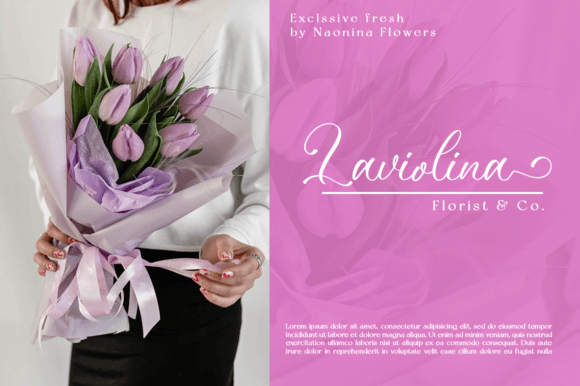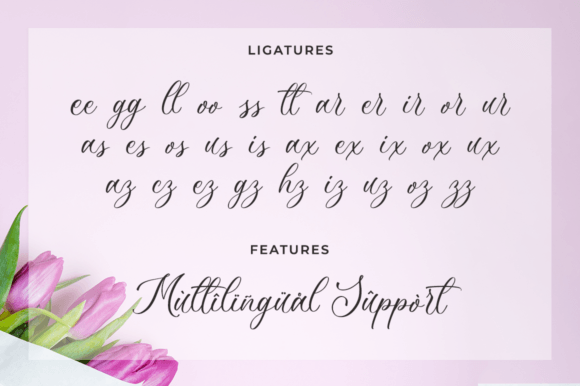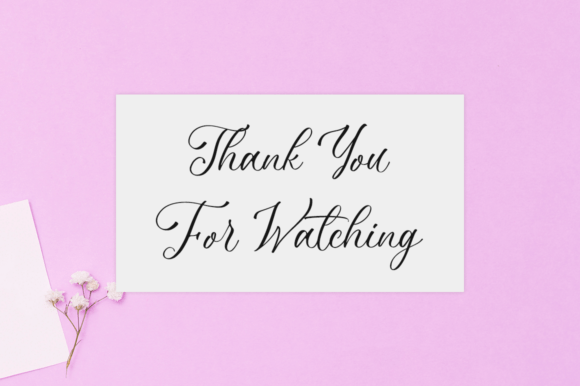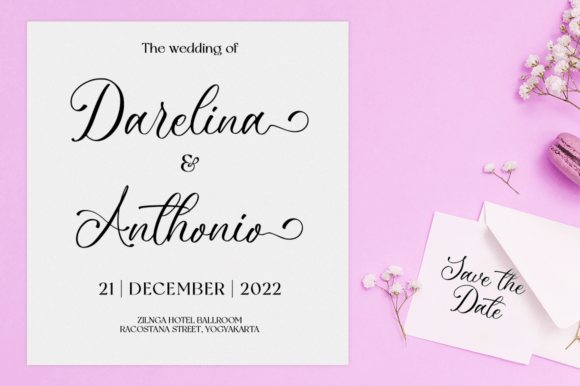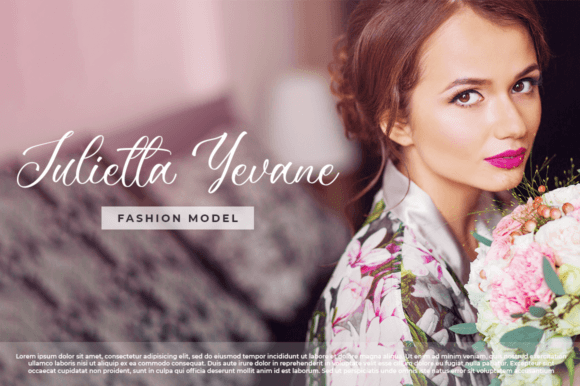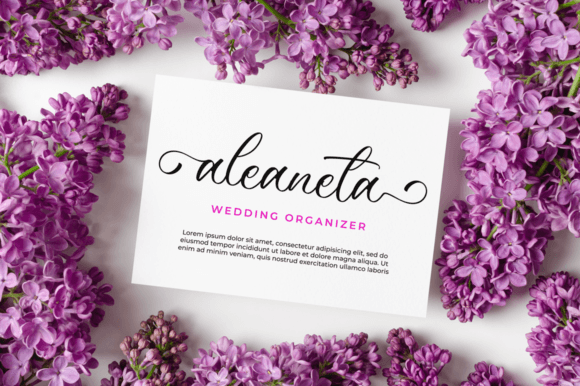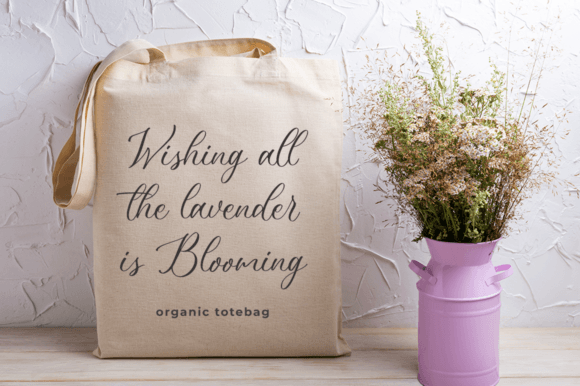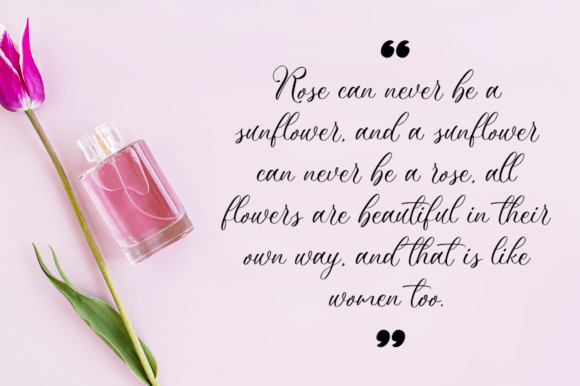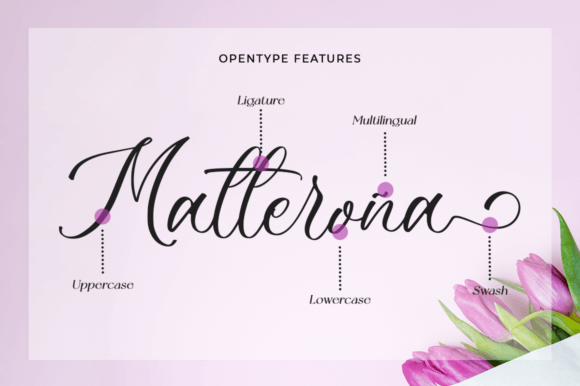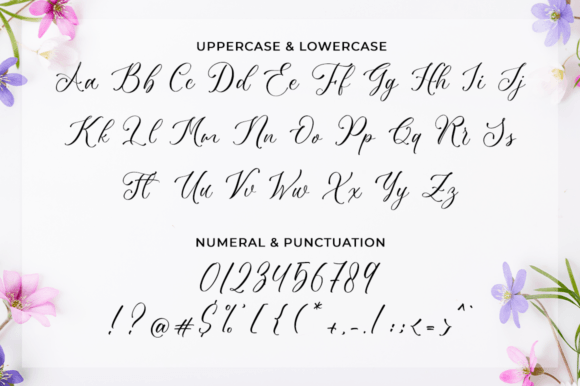
Latterova Font
About Latterova Font
“Latterova” is a gracefully flowing handwritten font that embodies an elegant touch, making it an excellent choice for your most cherished creative projects. Prepare to be captivated by its incredibly distinctive and timeless style, and harness its beauty to craft stunning and memorable designs. What sets “Latterova” apart is its PUA encoding, which grants you effortless access to a wide range of glyphs and swashes, providing endless possibilities for enhancing the decorative elements of your text.
This font’s elegance and fluidity make it an ideal choice for a variety of design applications, from branding and logos to invitations, stationery, and more. “Latterova” brings a touch of sophistication and refinement to your text, ensuring that your projects exude an air of timeless beauty.
The versatility of “Latterova” is truly remarkable. It adapts seamlessly to different design contexts, offering flexibility and creative freedom. Whether you’re working on a luxury brand identity, crafting elegant wedding invitations, or designing eye-catching social media posts, this font will infuse your work with an enduring sense of style.
Imagine using “Latterova” for your logo design and how it conveys a sense of elegance and sophistication to your target audience. Envision incorporating this font into your wedding invitations, setting the tone for a truly memorable celebration. When you utilize “Latterova” for your stationery, your correspondence takes on a level of timelessness that leaves a lasting impression.
In conclusion, “Latterova” is more than just a font; it’s a design asset that adds a touch of elegance and enduring beauty to your creative projects. Its flowing and elegant style makes it a versatile choice for a wide range of applications, and its PUA encoding offers you the creative freedom to explore numerous decorative options. Fall in love with “Latterova” and let it become your go-to font for creating designs that stand the test of time.